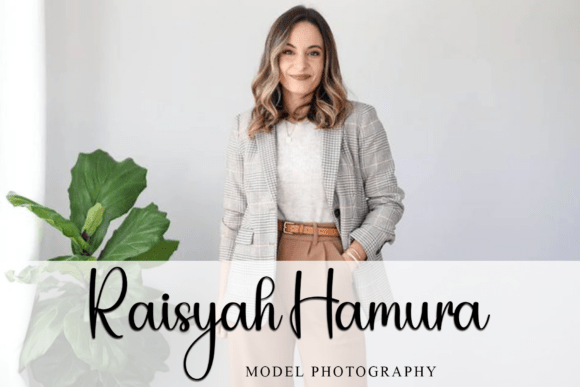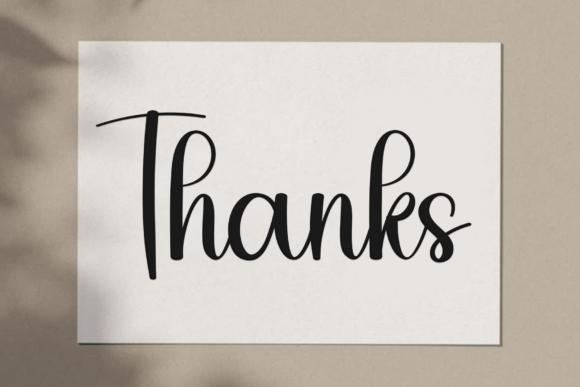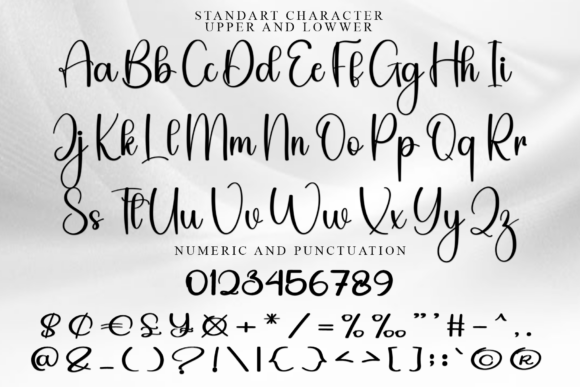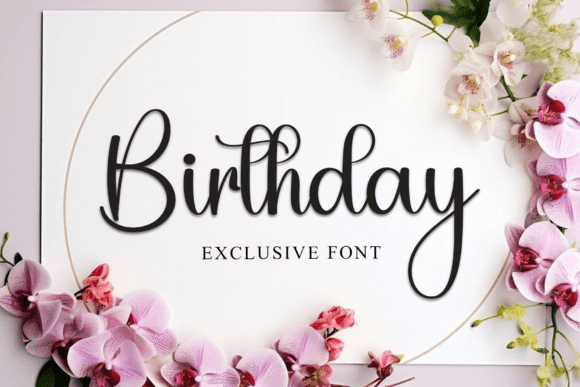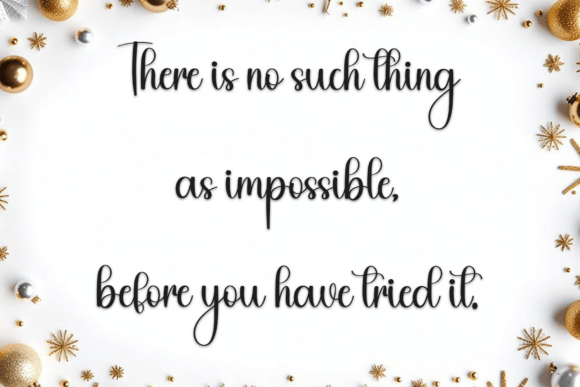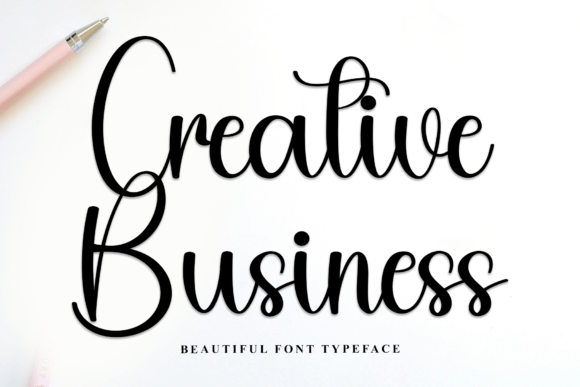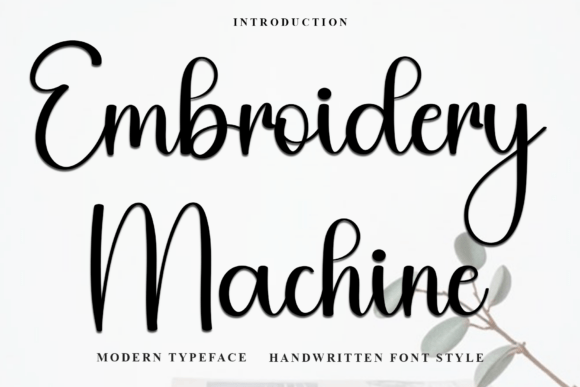
Introducing Embroidery Machine Font: Elevate Your Designs with a Unique Touch
In the world of design, typography plays a crucial role in capturing the essence of a project. For crafters, designers, and creative enthusiasts, finding the perfect font can be a game-changer. This is where the Embroidery Machine Font comes into play – a beautifully crafted font that adds a soft, unique touch to any design. With its distinctive strokes and versatile nature, this font is set to become a favorite among designers and crafters alike.
What Makes Embroidery Machine Font Stand Out?
The Embroidery Machine Font boasts a special character that sets it apart from other fonts. Its soft and unique touch gives designs a personal and handmade feel, making it perfect for projects that require a touch of warmth and personality. Whether you’re working on a craft project, designing a logo, or creating digital art, this font’s distinctive strokes will add a level of sophistication and elegance.
One of the key benefits of the Embroidery Machine Font is its versatility. With a range of characters, this font can be used for various design projects, from simple crafts to complex digital art. Its compatibility with different applications, including Windows and open-source platforms, makes it easy to integrate into your workflow. Whether you’re a professional designer or a hobbyist, this font is sure to become a staple in your design toolkit.
The Embroidery Machine Font is ideal for a wide range of design projects, including:
• Crafts: Add a personal touch to your handmade crafts, such as embroidery, quilting, or scrapbooking.
• Digital Art: Use this font to create stunning digital art, from illustrations to graphic designs.
• Logo Design: Create a unique and memorable logo for your business or brand.
• Signage: Use this font to create eye-catching signs, banners, and posters.
Why Choose Embroidery Machine Font?
There are several reasons why designers and crafters should choose the Embroidery Machine Font:
• Unique Touch: This font adds a soft, unique touch to designs, making them stand out from the crowd.
• Versatility: With a range of characters and compatibility with different applications, this font is perfect for various design projects.
Tips for Using Embroidery Machine Font
To get the most out of the Embroidery Machine Font, here are some tips:
• Experiment with Sizes: Try different font sizes to see how it works with your design.
• Pair with Other Fonts: Combine this font with other fonts to create a unique and visually appealing design.
• Use in Combination with Images: Use this font in combination with images or graphics to add an extra layer of depth to your design.
The Embroidery Machine Font is a beautiful and versatile font that is sure to elevate your designs. With its unique touch, distinctive strokes, and compatibility with various applications, this font is perfect for designers and crafters alike. Whether you’re working on a craft project, designing a logo, or creating digital art, this font is sure to become a favorite in your design toolkit. So why wait? Download the Embroidery Machine Font today and take your designs to the next level!